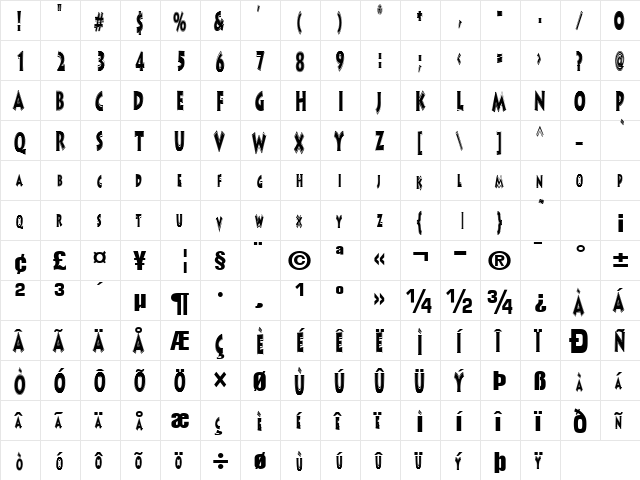
Artist Regular
Design Context for Artist Typeface
Artist is a composed and adaptable typeface that performs quietly and consistently across a wide range of design contexts.